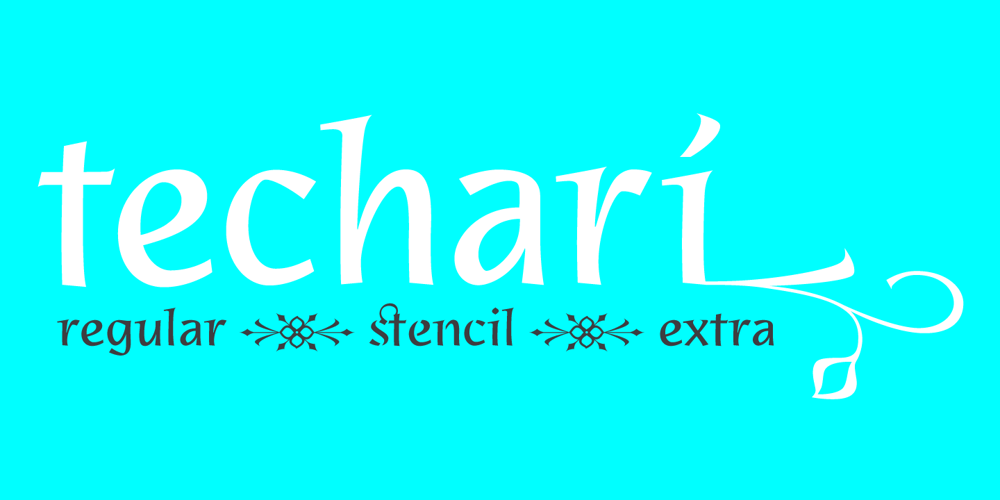
Techari Font Family was designed by Pilar Cano and published by Letterjuice. Techari contains 2 styles and family package options. Techarí comes from a commission in which the brief consisted of the creation of a typeface family to be used for the design of the third disc of the band called Ojos de Brujo based in Barcelona. This disc was called Techarí, which means “free” in Caló, the language of the Spanish gypsies. The starting point of the design was the music of this band, the meaning of the disc ‘s name, and three words given by the band as key concepts: ethnic, baroque and graffiti. Techarí is a mixture of lots of influences, which give it its unique personality. From its technical viewpoint designing Techarí was a challenge, on the one hand it had to have lots of personality, and on the other it had to work in text at 9 or 10 pt size. Its goal is precisely that, while keeping a strong personality it works in text size. The typeface also contains a Stencil version for use in display sizes which keeps Techarí’s innovative spirit. The way it has been “cut” is unconventional, it has been carefully done to keep the freshness of the typeface by taking advantage of the letterforms’ flow. Techarí extra complements the typeface by taking a classical typographic form, the ornament, and making it a contemporary graphic tool, vindicating this wonderful typographic element.